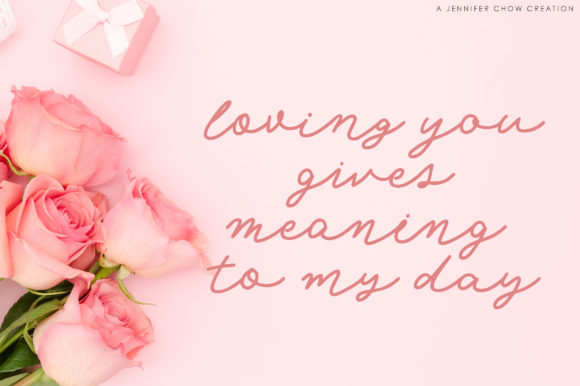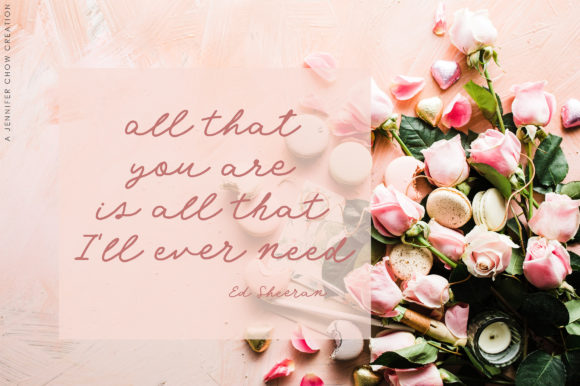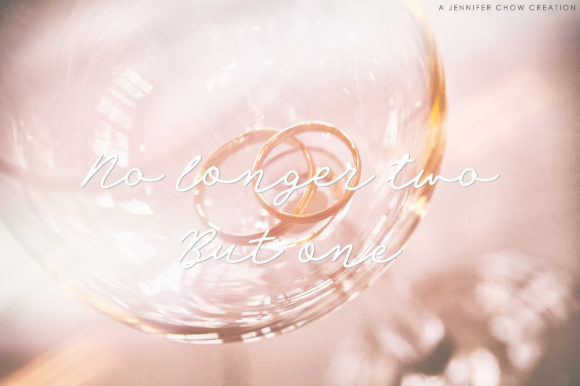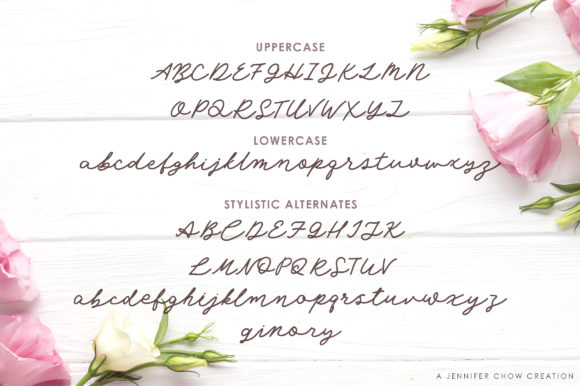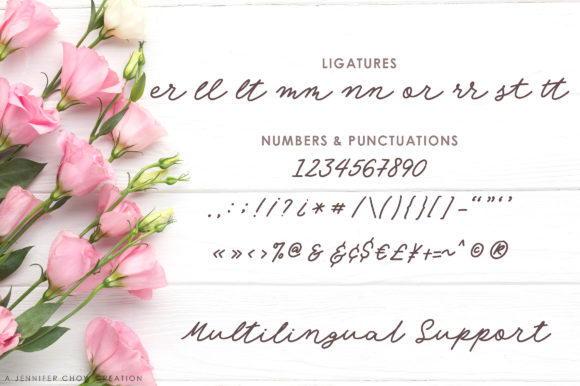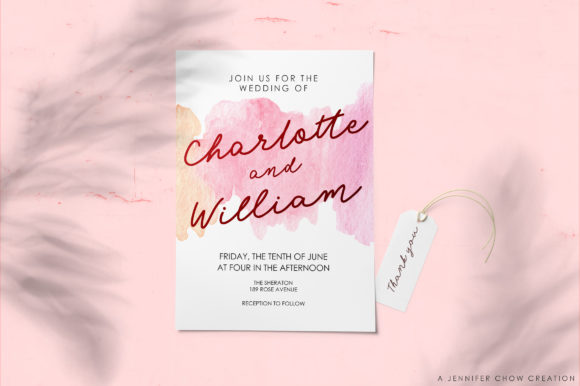
Have you ever sat down at your desk, stared blankly at your computer screen, and suddenly felt a rush of inspiration? That’s exactly what happened to many designers when they discovered the Angel Rose Font. Its elegant monoline script design is the perfect combination of sophistication and whimsy, making it a must-have for any creative project.
Whether you’re working on a wedding invitation, a brand identity, or a social media post, the Angel Rose Font is sure to elevate your design to the next level. Its unique style is versatile enough to be used in a variety of contexts, from formal events to casual social media updates. As a designer, you know how valuable it is to have a reliable font that can add a touch of elegance to any project. The Angel Rose Font is that font.
Angel Rose Font Key Features
- Font Family: Angel Rose is a script font, ideal for creating elegant and sophisticated designs.
- Unique Characteristics: The font features a unique blend of elegance and whimsy, with flowing connections and subtle flourishes that add a touch of sophistication to any design.
Designer Review: Angel Rose Font
✨ First of all, I have to say that I love the elegant and whimsical feel of the Angel Rose Font. The delicate, hand-drawn style and the subtle floral motifs are perfect for creating a romantic and feminine atmosphere in any design project. The font is also highly legible, even at smaller font sizes, making it ideal for body text.
- ✨ Unique and creative design
- ✨ Highly legible and versatile
- ✨ Perfect for feminine and romantic designs
⚠️ One of the limitations of the Angel Rose Font is that it may not be suitable for more modern or edgy designs. The font’s vintage and delicate style may clash with more contemporary or bold design elements. Additionally, the font may not be as effective in large font sizes, where the details may get lost.
Overall, I think the Angel Rose Font is a beautiful and charming addition to any designer’s toolkit. While it may have some limitations, its unique style and high legibility make it a great choice for a wide range of design projects, especially those that require a touch of elegance and romance.
Tips for Getting the Most Out of the Angel Rose Font
Use the Angel Rose Font to create elegant and sophisticated designs. Pair it with complementary colors and fonts to create a unique look. Experiment with different font sizes and styles to add visual interest.
The Angel Rose Font is perfect for:
- Formal event invitations and announcements
- High-end marketing materials and brochures Alternatives to Angel Rose Font
- Create a custom illustration of a bride and groom surrounded by roses and flowers.
- Use the Angel Rose Font to add the wedding invitation details, such as the date, time, and location.
- Combine the font with elegant calligraphy and watercolor elements to create a romantic and whimsical design.
- Select a powerful and uplifting quote that resonates with your personal values and beliefs.
- Use the Angel Rose Font to display the quote in a beautiful and elegant way, perhaps with a subtle background texture or pattern.
- Combine the font with a minimalist design aesthetic and a limited color palette to create a clean and sophisticated look.
The Angel Rose Font is a beautiful, elegant script font often used for invitations, weddings, and other special occasions. However, designers may be looking for alternatives with similar characteristics or unique features. Here are a few options to consider: